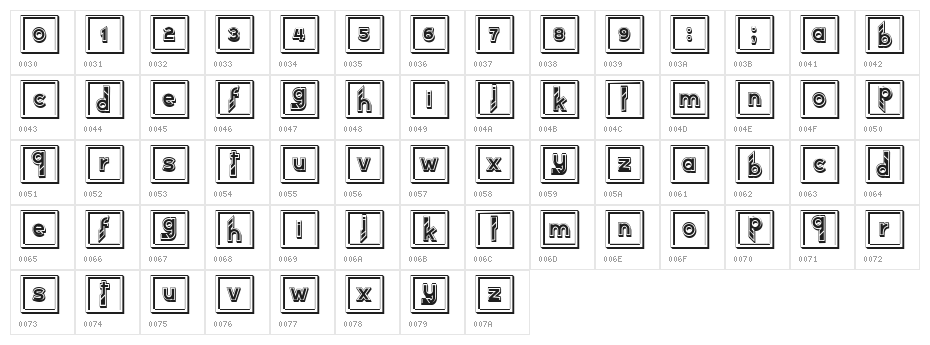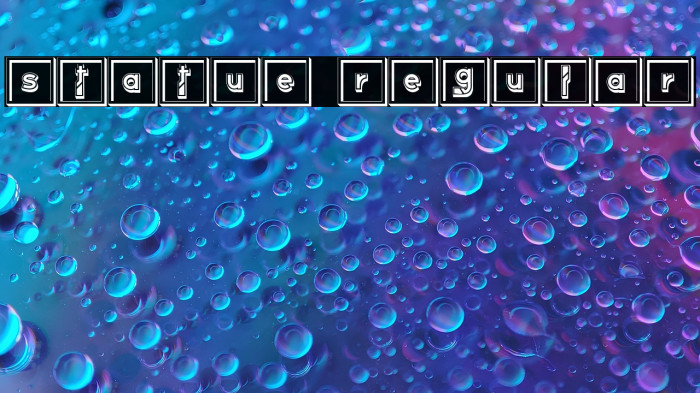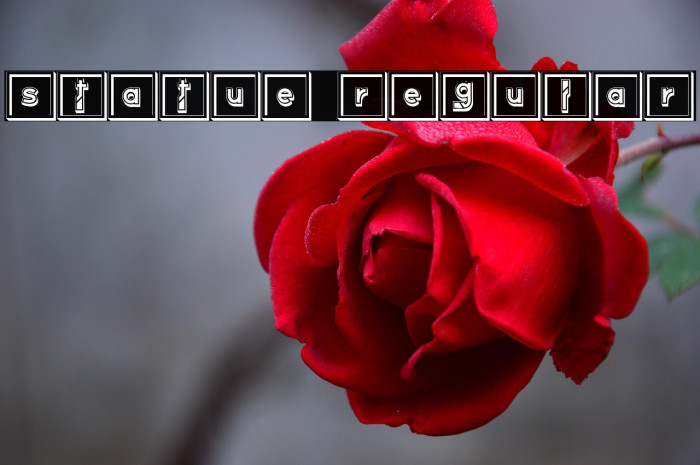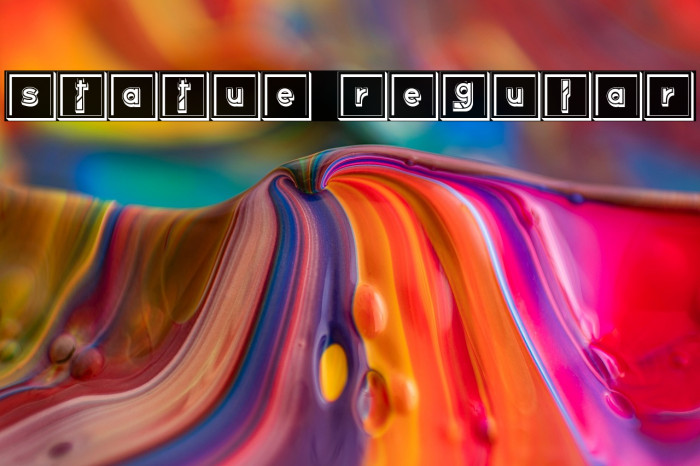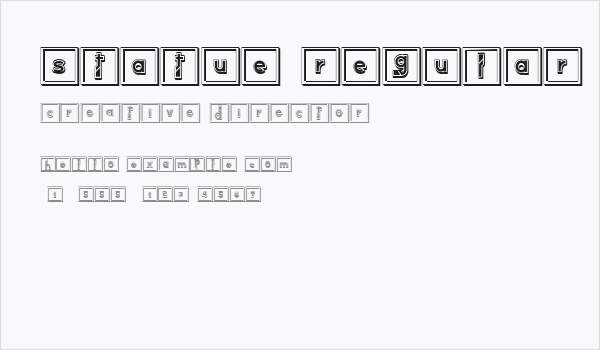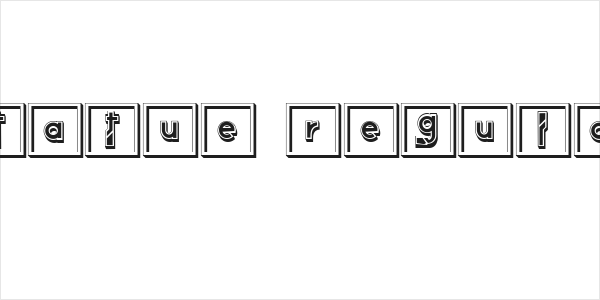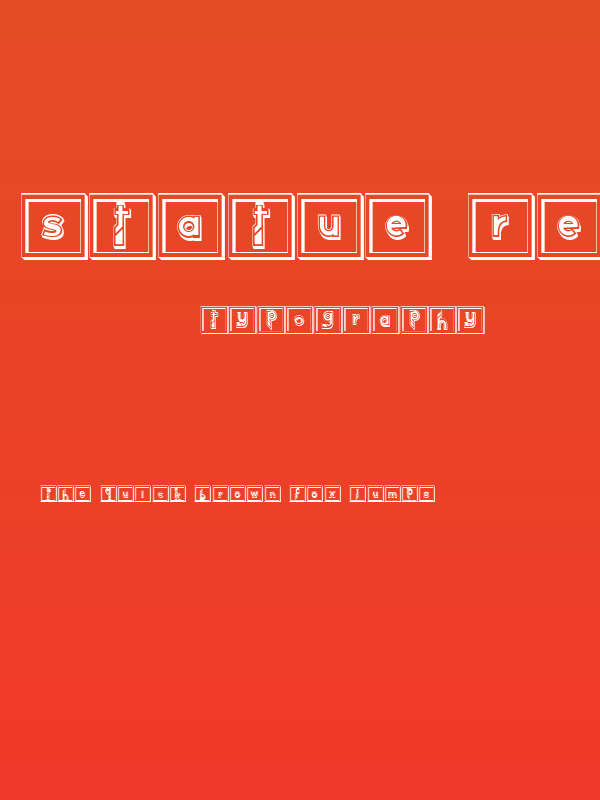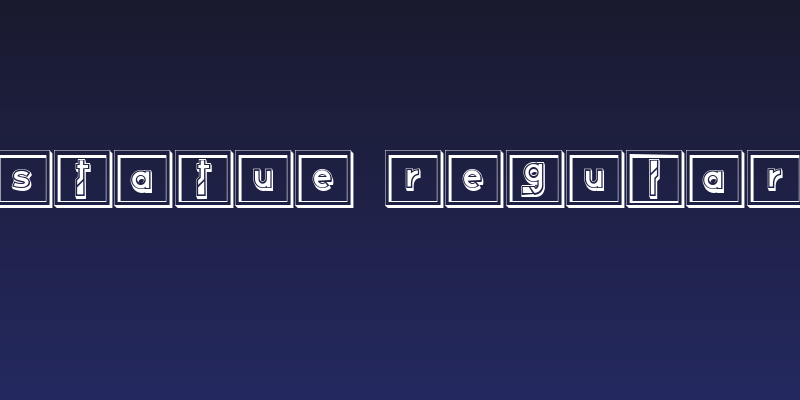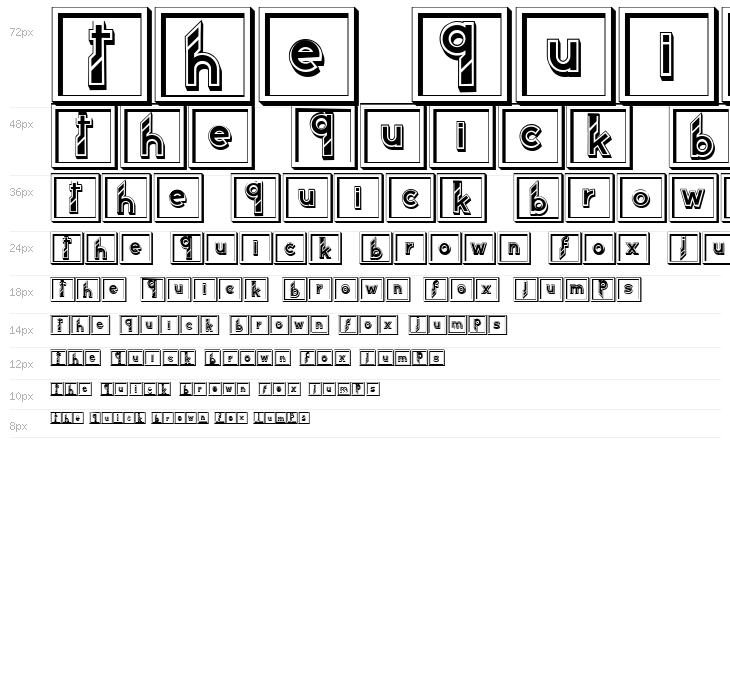
Statue Regular Font
Statue Regular Description
This font features a unique and modern design with each character enclosed in a square frame. The letters have a bold and geometric style, with sharp angles and clean lines that create a striking visual impact. The font is characterized by its decorative elements, with each letter having a distinct pattern or design within the frame. The numbers and special characters follow the same design principles, ensuring consistency throughout the typeface. The overall appearance is both artistic and structured, making it suitable for creative and contemporary projects.
| Proposed Projects | Ideal for posters, album covers, branding, and any project requiring a modern and artistic touch. |